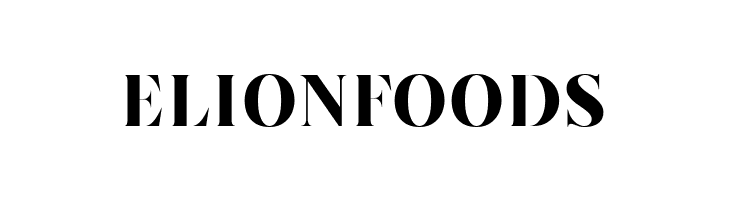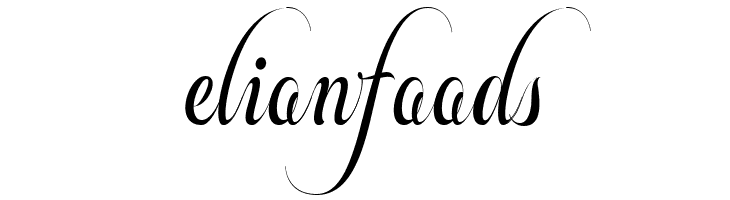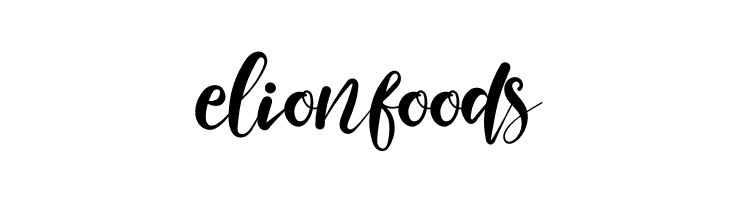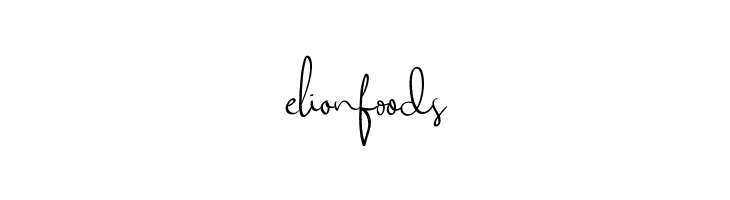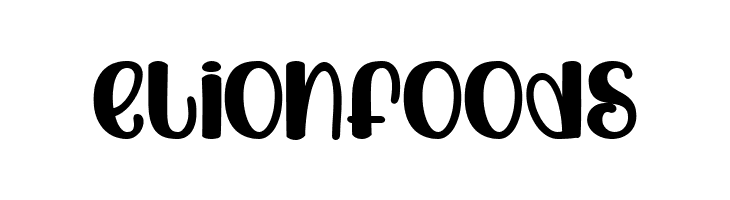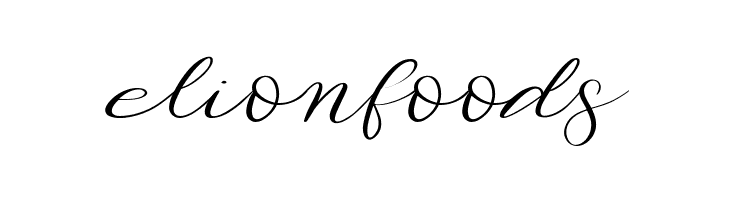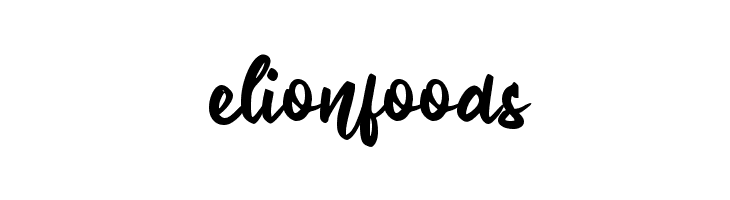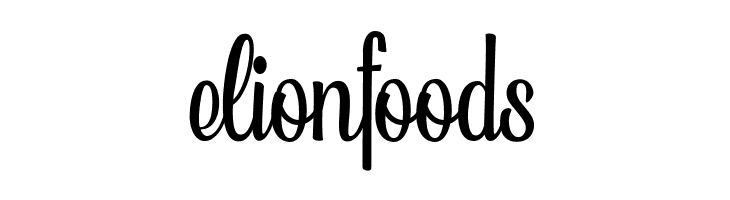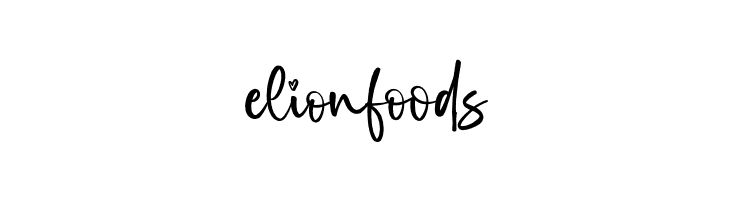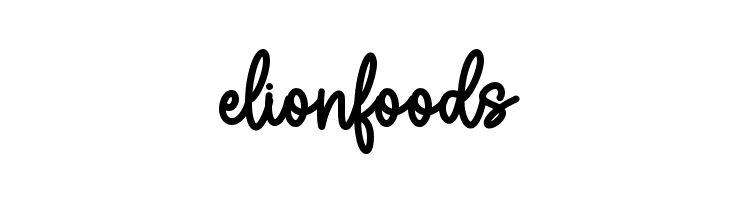
An elegant, flowing script font with artistic flair.
An elegant, cursive font with flowing, sophisticated strokes.
A bold, playful font with vintage charm and whimsical serifs.
An elegant, decorative script font with intricate swirls and flowing letters.
A playful and elegant handwritten font with smooth, flowing lines.
An elegant script font with flowing, cursive letterforms and medium contrast.
A playful and artistic script font with a modern twist, featuring smooth, flowing strokes.
A playful, bold font with rounded edges and a whimsical style.
A modern, cursive font with elegant curves and bold uppercase letters.
A cursive, flowing font with elegant, interconnected letters.